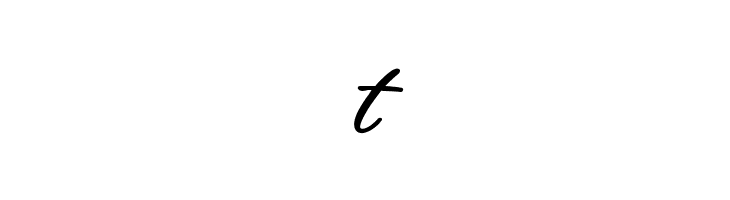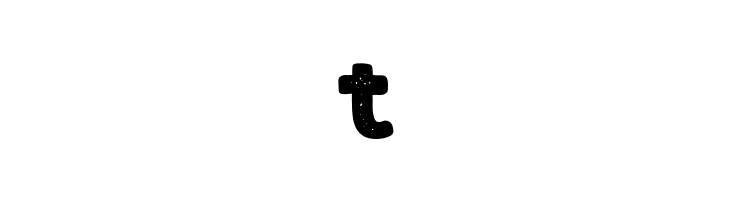
A playful, handwritten script font with smooth, flowing lines.
A bold, distressed font with a playful and vintage feel.
A bold, distressed font with an eerie, hand-drawn style.
An elegant and flowing script font with interconnected cursive strokes.
A charming handwritten script with fluid, graceful strokes and decorative flair.
A dynamic and elegant script font with fluid, cursive letterforms.
A playful, hand-drawn font with rounded, bold characters and a whimsical style.
A playful, casual handwritten font with smooth, flowing strokes.
A modern sans-serif font with clean lines and a slightly condensed structure.